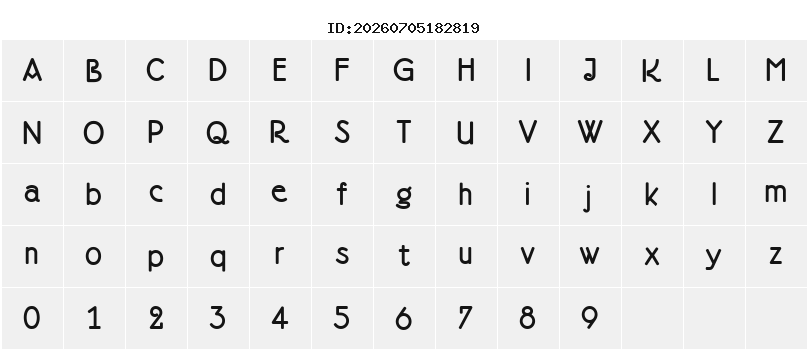
Doctor Jekyll NF Preview
• Font Name: Doctor Jekyll NF
• Full Font Name: Doctor Jekyll NF
• Designer: Nick Curtis
• Manufacturer: Nick's Fonts
About Doctor Jekyll NF.ttf
Doctor Jekyll NF.ttf is a modern, elegant sans-serif font designed for ultimate readability and visual harmony. Perfect for branding, headlines, web design, and print materials.